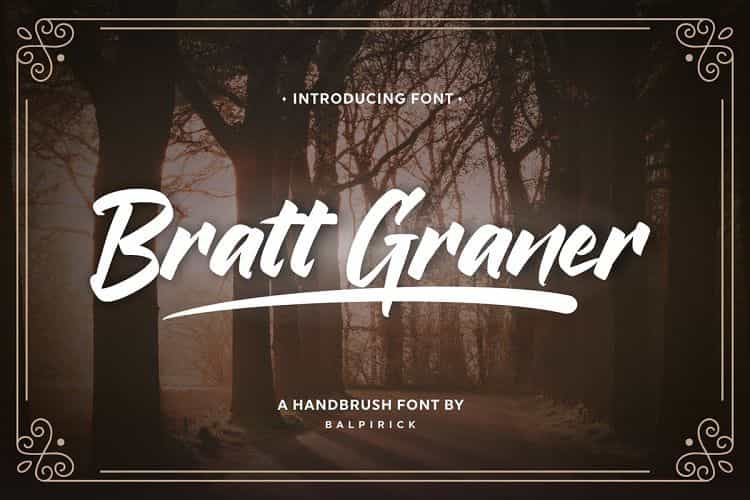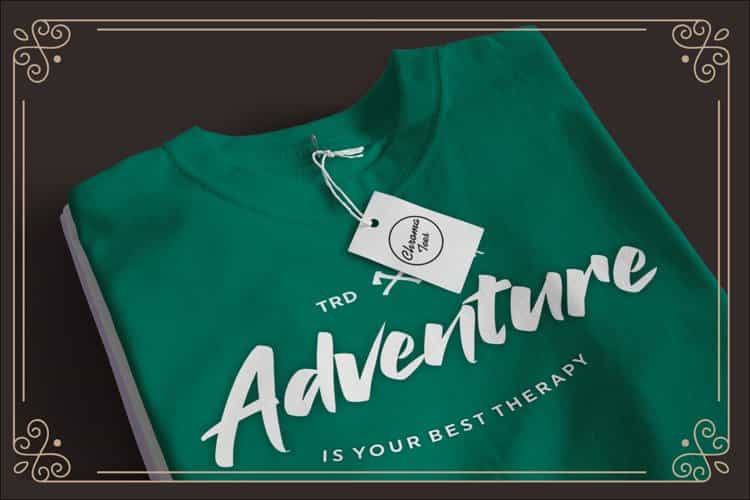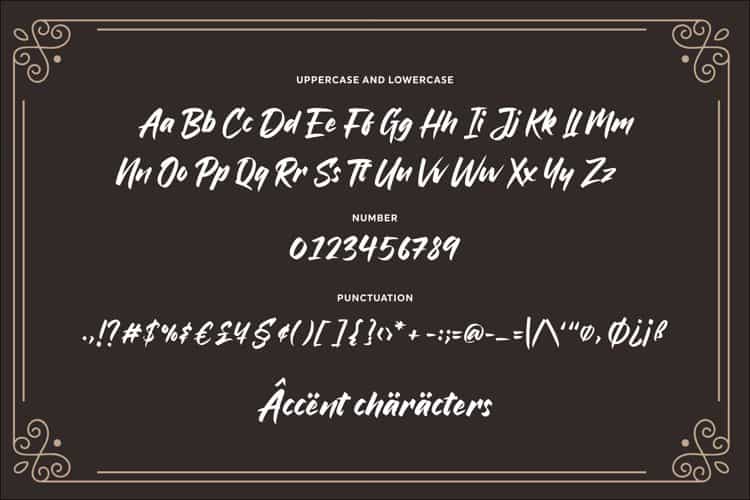
Bratt Graner is an up-to-date brush font which can be used for any title, shop name and logo. Besides, it is perfect for the product packaging and branding projects, or social media.